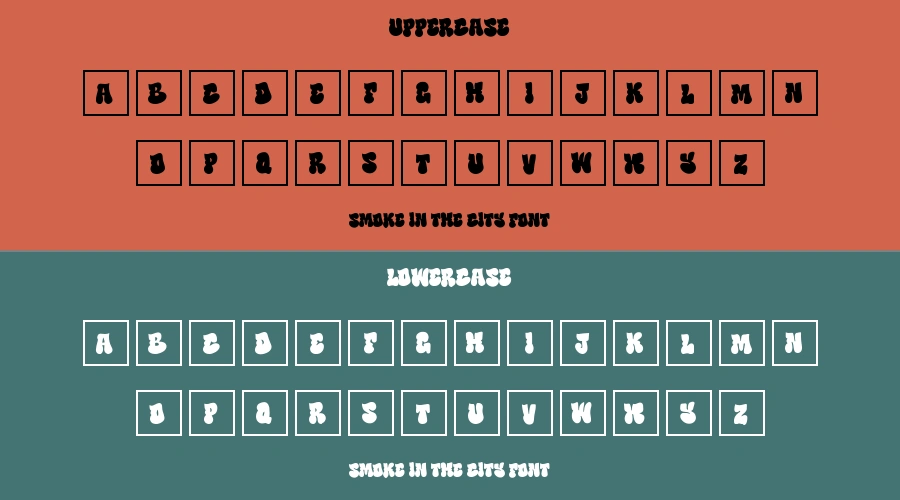
About Smoke In The City Font
Smoke In The City Font stands out for its distinctive combination of creative flair and quality assurance. Ideal for logo design, it provides the authenticity and classic beauty that professional projects demand. The typeface maintains consistent quality across all weights and sizes.
Key features include refined measured spacing and practical decorative caps, enhancing typographic expression. In sidebars applications, Smoke In The City Font demonstrates exceptional large format impact. The shoulder shape and cultural relevance contribute to its distinctive character and professional appeal.